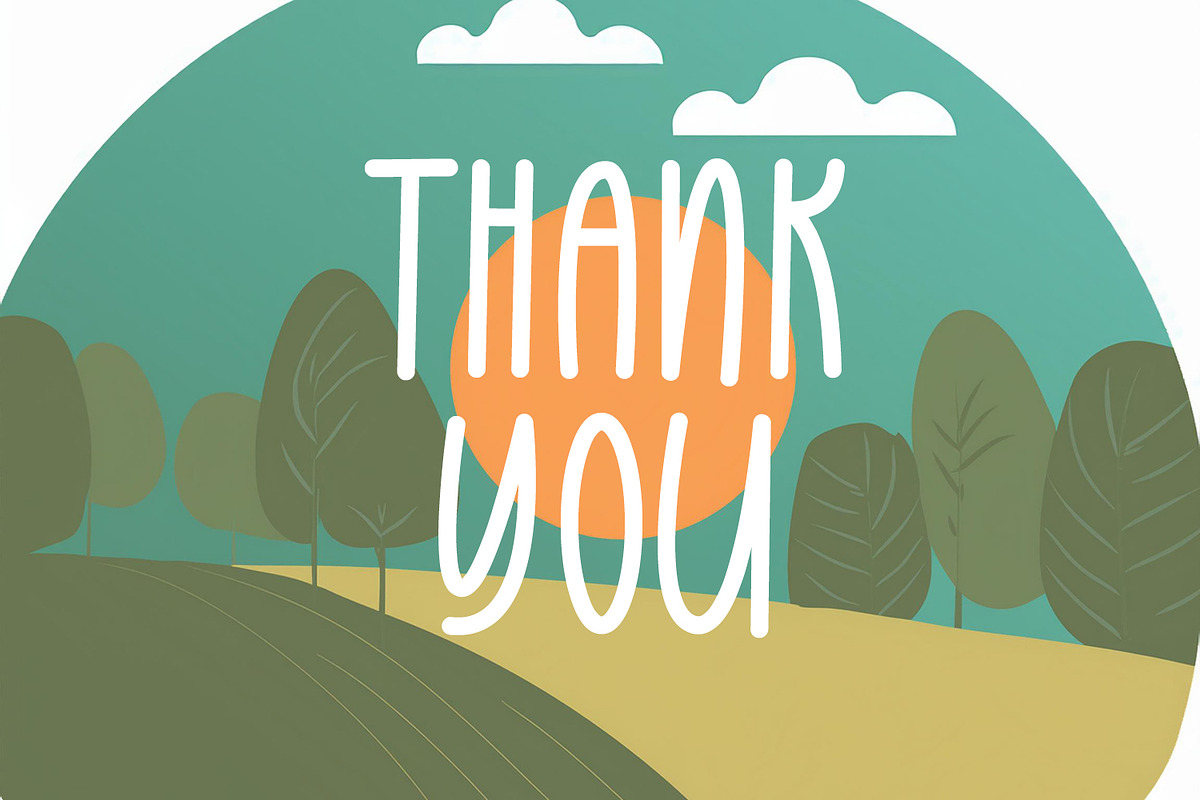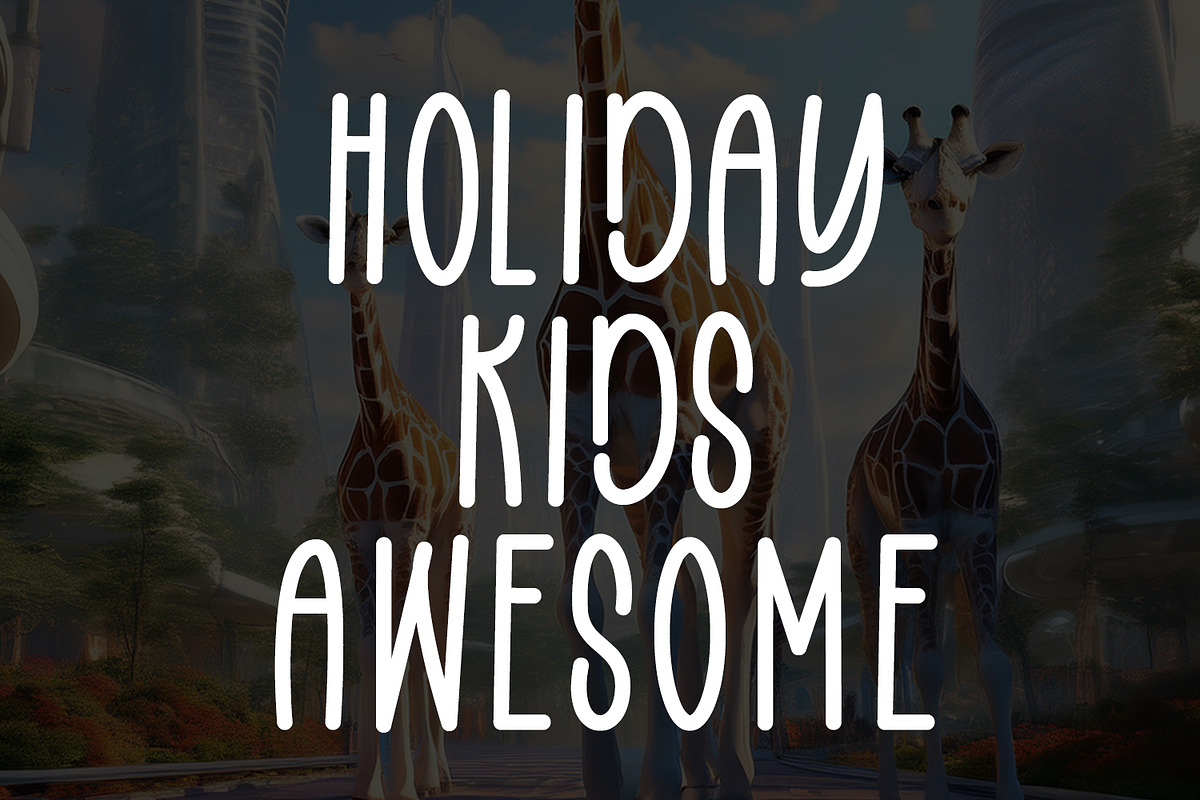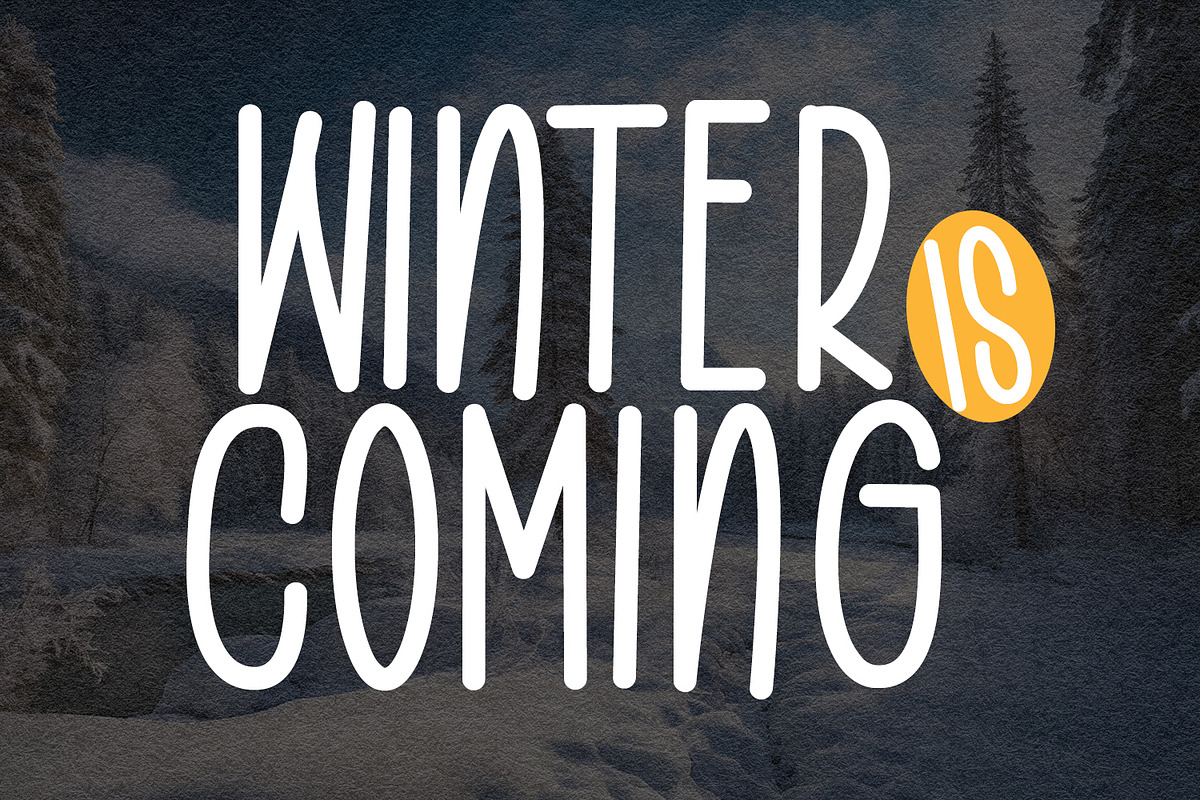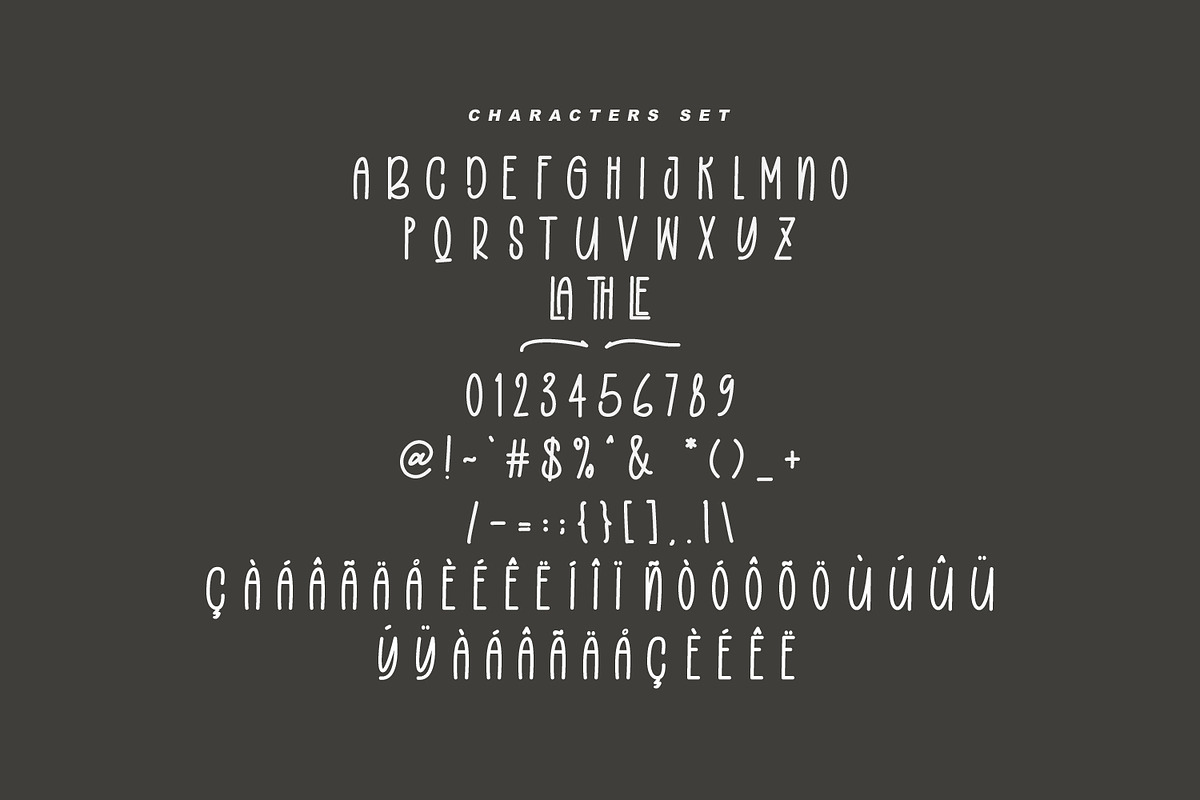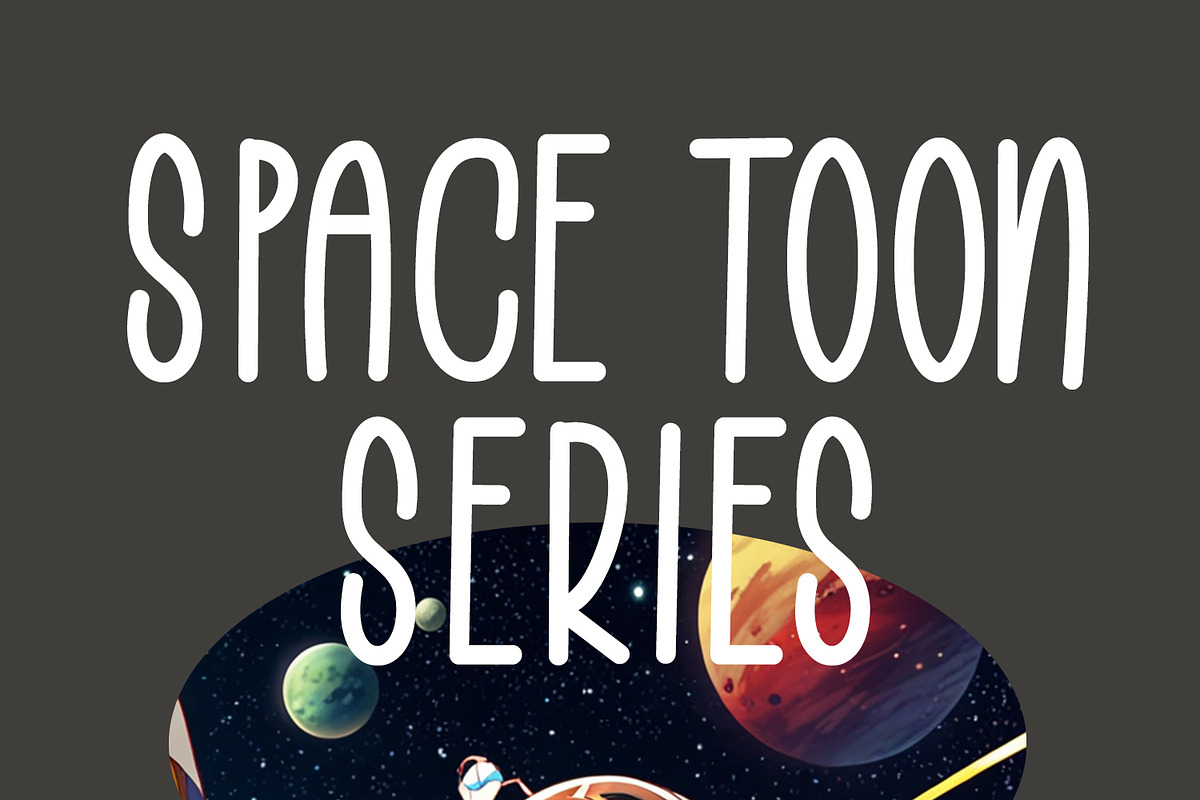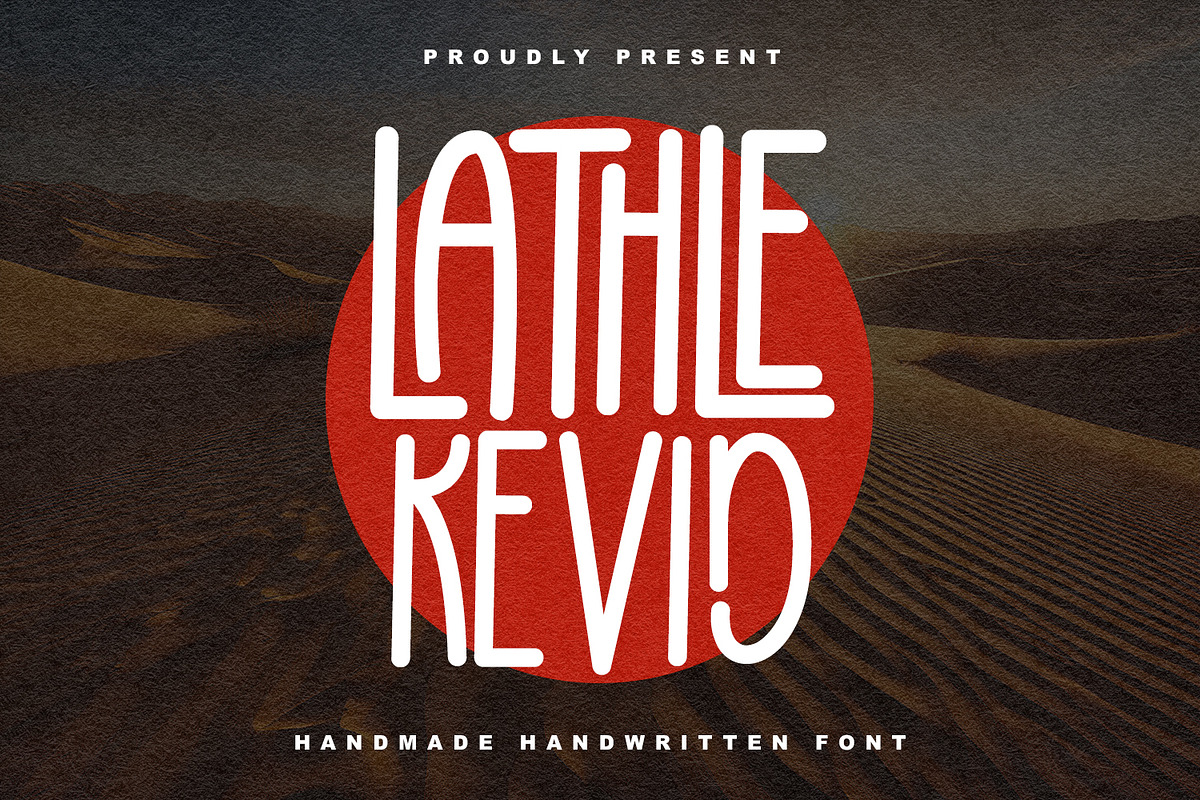
Lathle Kevid Handmade Handwritten
Lathle Kevid is a handmade modern retro font. With medium stroke, fun character with a bit of ligature and alternate. To give you an extra creative work Lathle Kevid font support multilingual more than 100+ language. This font is good for logo design, Social media, Movie Titles, Books Titles, a short text even a long text letter and good for your secondary text font with sans or serif. Make a stunning work with Lathle Kevid font.